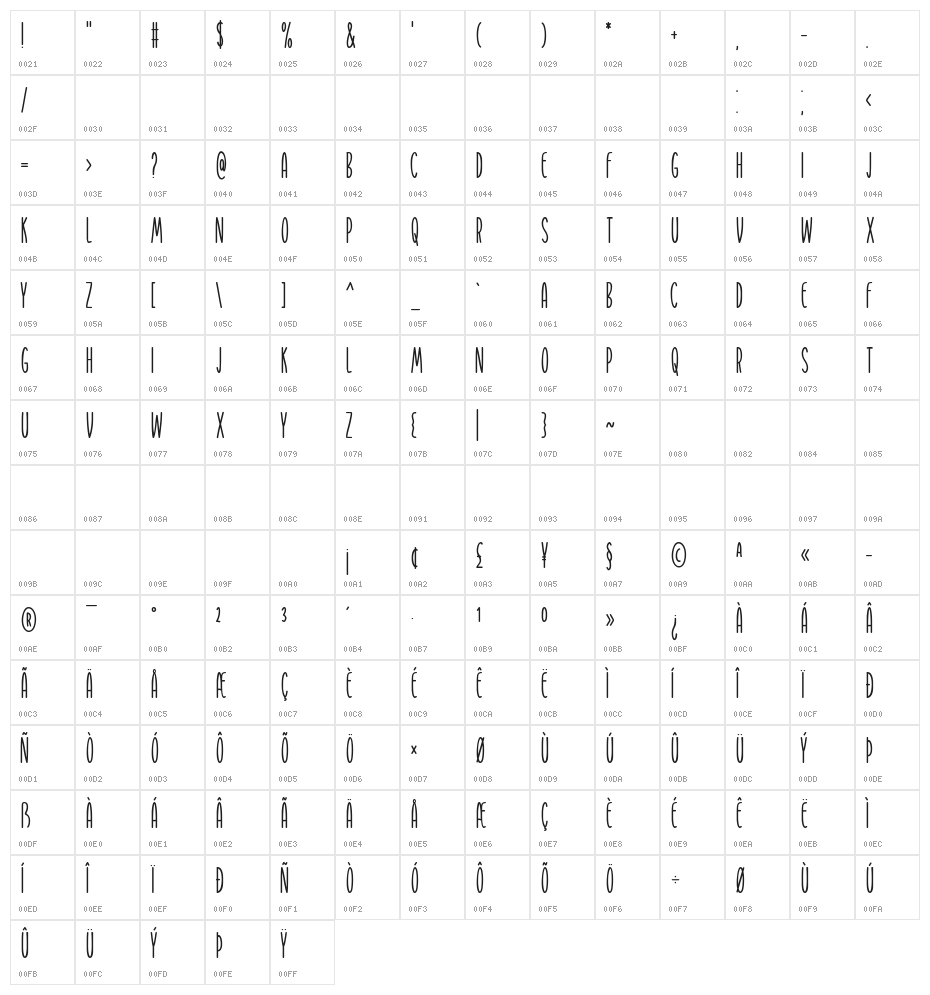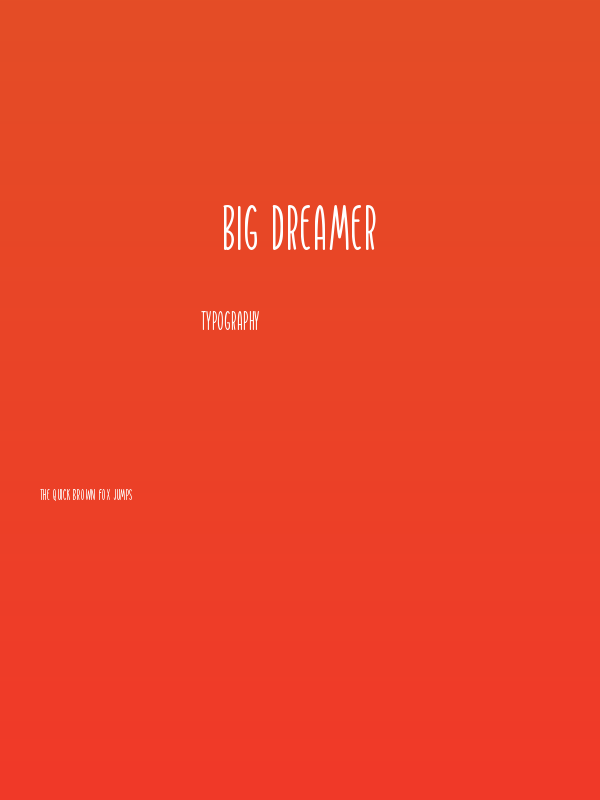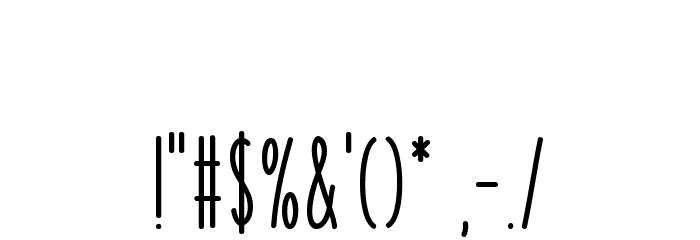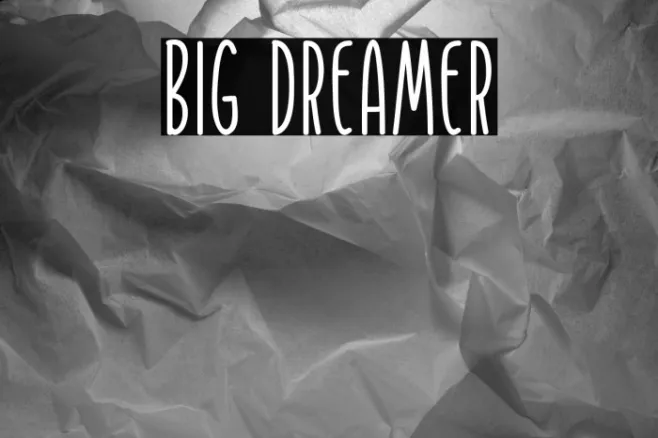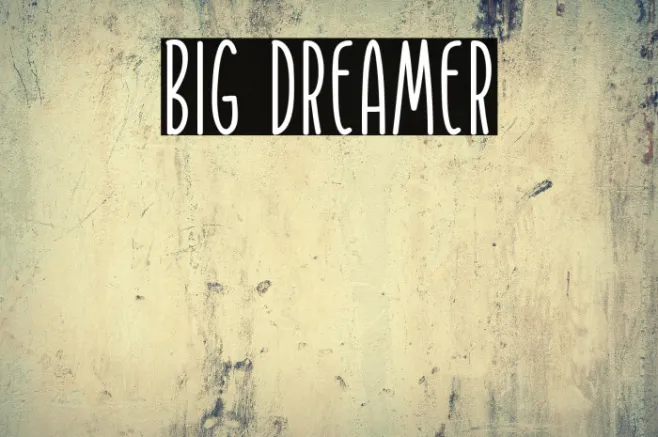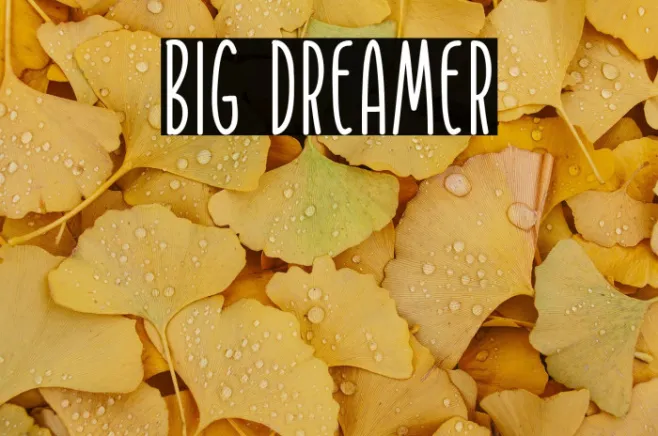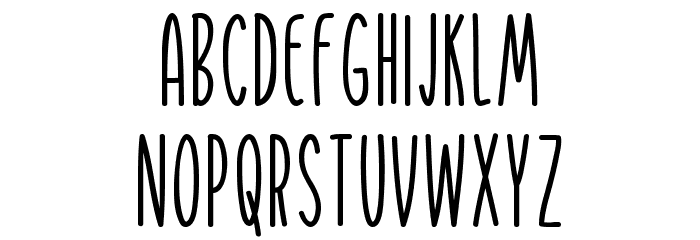
Big Dreamer Font
Big Dreamer Description
This font features tall, narrow characters with a playful and whimsical style. The strokes are consistent in width, giving it a clean and modern appearance. The uppercase letters are slightly elongated, adding a sense of elegance and sophistication. The lowercase letters maintain a similar height, creating a cohesive look. The numerals and special characters are designed to match the overall aesthetic, ensuring uniformity across all text. This font is suitable for projects that require a touch of creativity and flair, while still maintaining readability.
| Proposed Projects | Ideal for children's books, creative posters, playful branding, and social media graphics. |